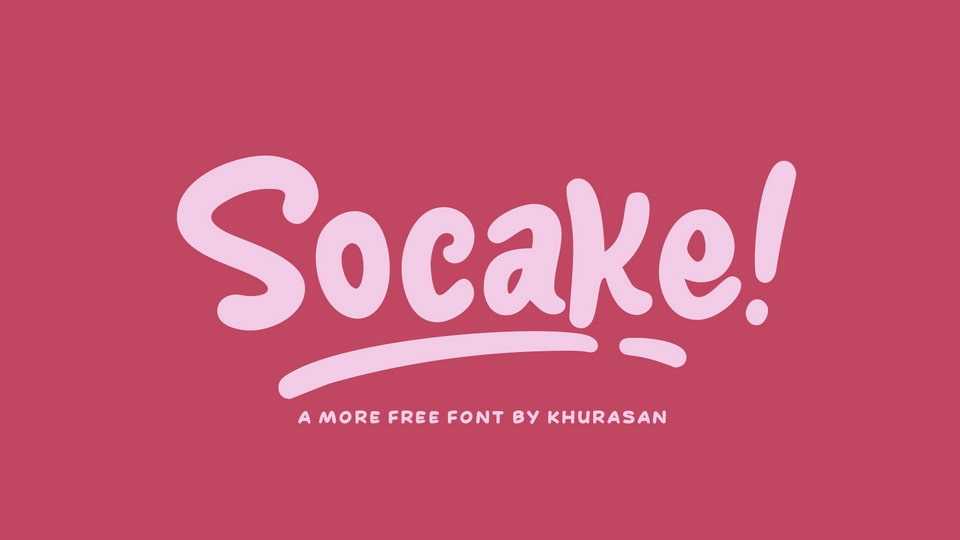
Download Socake font, a hand lettered comic typeface filled with a playful and fun vibe. Add an eye-catching and whimsical touch to your designs with Socake font.